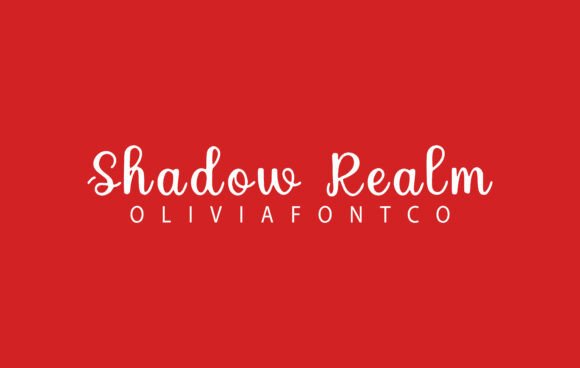
Introducing Shadow Realm Font: The Ultimate Handwritten Font for Creative Expression
In the world of typography, a good font can make all the difference in elevating your creative ideas to new heights. For those seeking a unique and romantic touch, Shadow Realm font is an authentic handwritten font that is sure to capture your heart. Designed with expertise and precision, this font has the potential to become your true favorite, allowing you to express yourself in a distinctive and captivating way.
What Makes Shadow Realm Font Stand Out?
Shadow Realm font boasts a range of characteristics that set it apart from other fonts. Here are a few reasons why this font is a cut above the rest:
- Authentic Handwritten Style: Shadow Realm font is crafted with a genuine handwritten touch, giving it a warm and personal feel that resonates with readers.
- Romantic Touch: This font exudes a sense of romance and elegance, making it perfect for designs that require a sophisticated and emotional appeal.
- Legibility: Despite its ornate nature, Shadow Realm font remains highly legible, ensuring that your message is conveyed clearly and effectively.
- Versatility: This font is suitable for a wide range of applications, from title text to body text, making it an excellent addition to your font library.
The Perfect Font for Various Design Applications
Shadow Realm font is incredibly versatile, making it an ideal choice for various design projects. Here are some examples of how you can utilize this font:
- Magazine Headlines: Add a touch of sophistication and glamour to your magazine headlines with Shadow Realm font.
- Social Media: Elevate your social media presence with eye-catching graphics and posts featuring this beautiful font.
- Branding: Establish a unique brand identity with Shadow Realm font, perfect for logos, business cards, and other marketing materials.
- Wedding Invitations: Make your wedding invitations truly special with this romantic and elegant font.
- Cards and Greeting Cards: Add a personal touch to your cards and greeting cards with Shadow Realm font.
Why Choose Shadow Realm Font?
With so many fonts available, why should you choose Shadow Realm font? Here are a few compelling reasons:
- Unique and Distinctive: This font offers a fresh and distinctive style that will set your designs apart from the crowd.
- Elegant and Sophisticated: Shadow Realm font exudes elegance and sophistication, making it perfect for designs that require a high-end feel.
- Easy to Read: Despite its ornate nature, this font remains easy to read, ensuring that your message is conveyed effectively.
- Highly Versatile: Shadow Realm font can be used for a wide range of applications, making it an excellent addition to your font library.
Tips for Using Shadow Realm Font Effectively
To get the most out of Shadow Realm font, here are a few tips to keep in mind:
- Use it Sparingly: While Shadow Realm font is beautiful, it’s best to use it sparingly to avoid overwhelming your design.
- Pair it with Other Fonts: Experiment with pairing Shadow Realm font with other fonts to create a unique and visually appealing combination.
- Adjust Font Size and Style: Don’t be afraid to adjust the font size and style to suit your design needs.
- Experiment with Colors: Try out different colors to find the perfect match for your design.